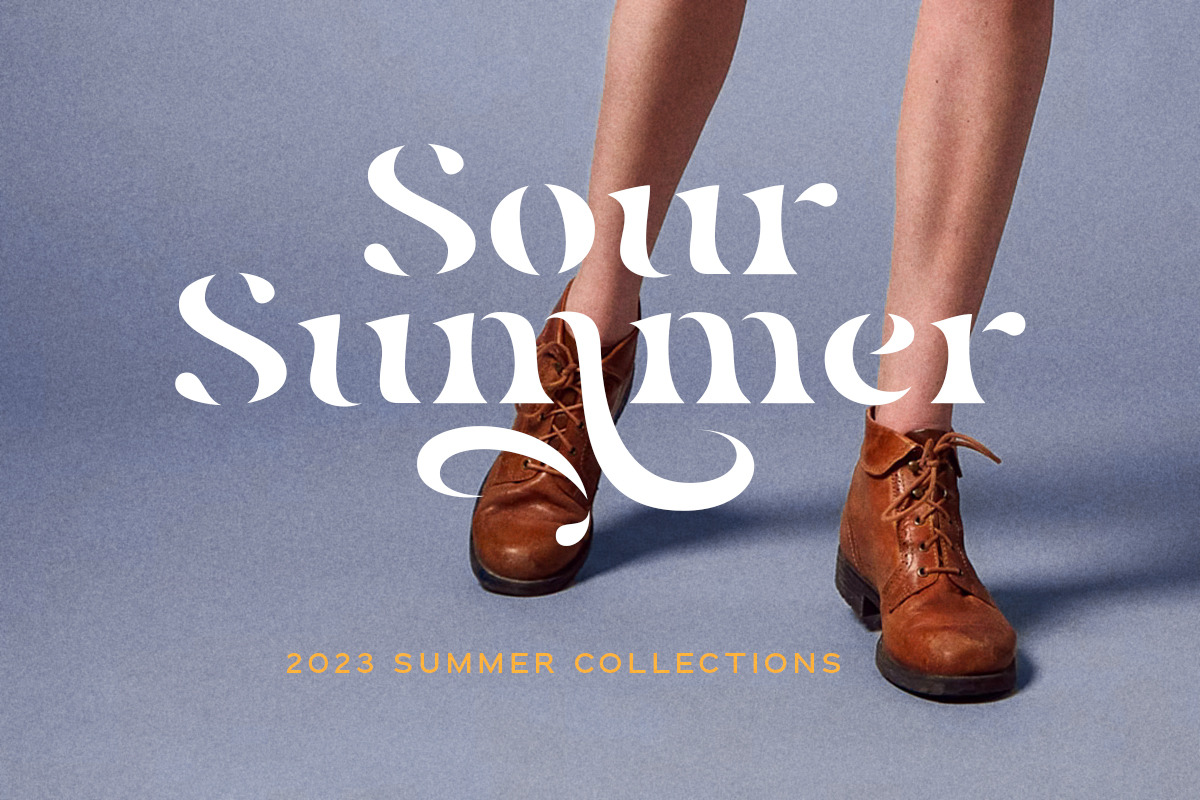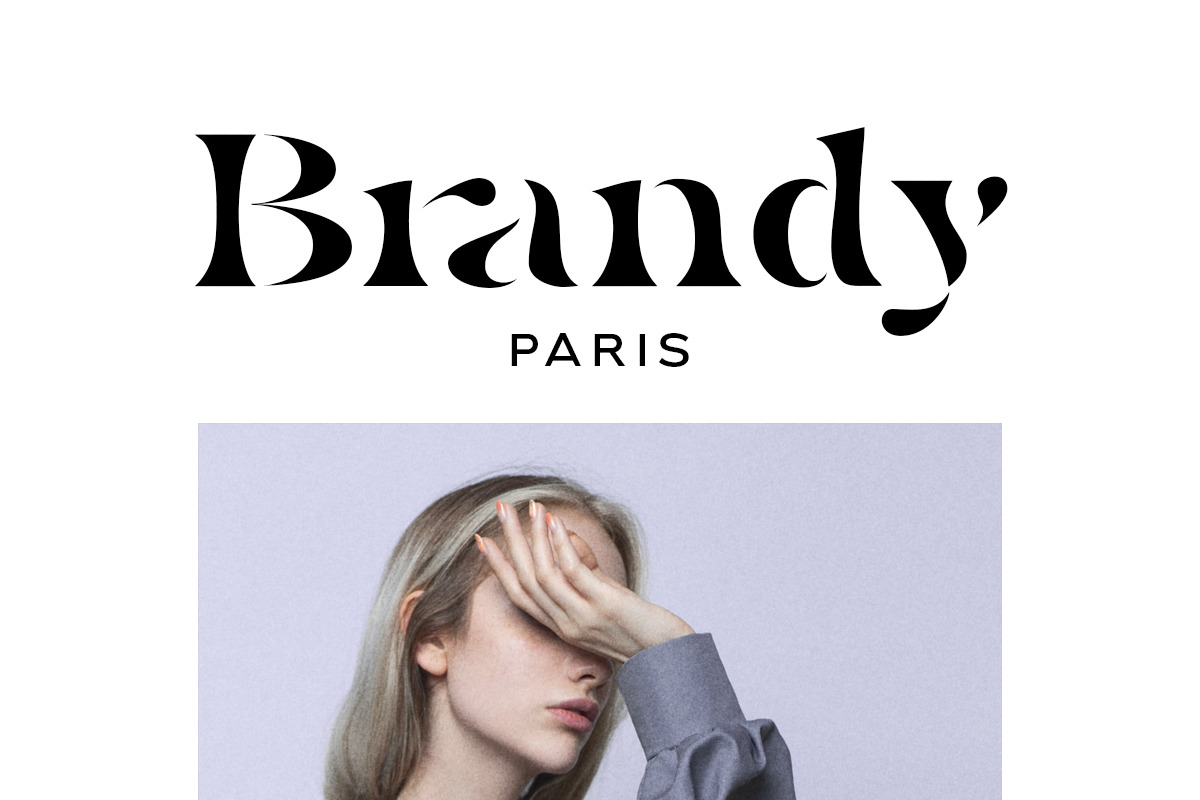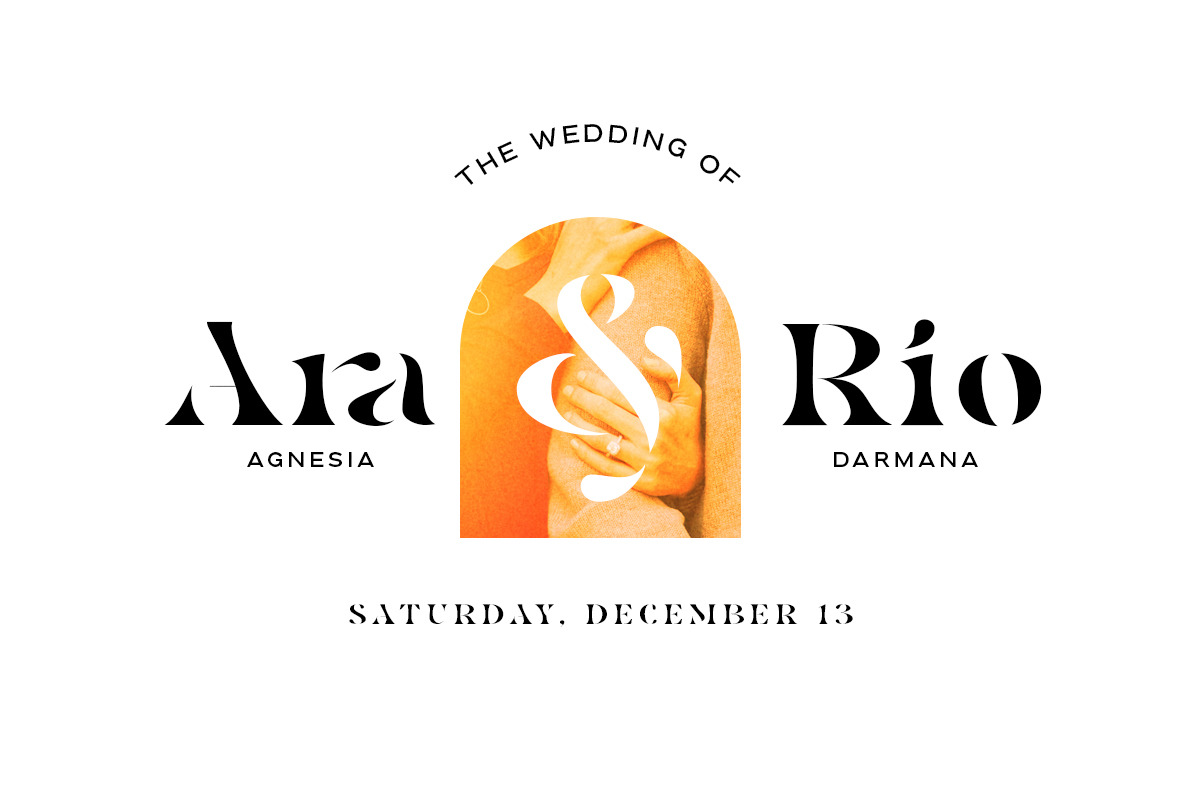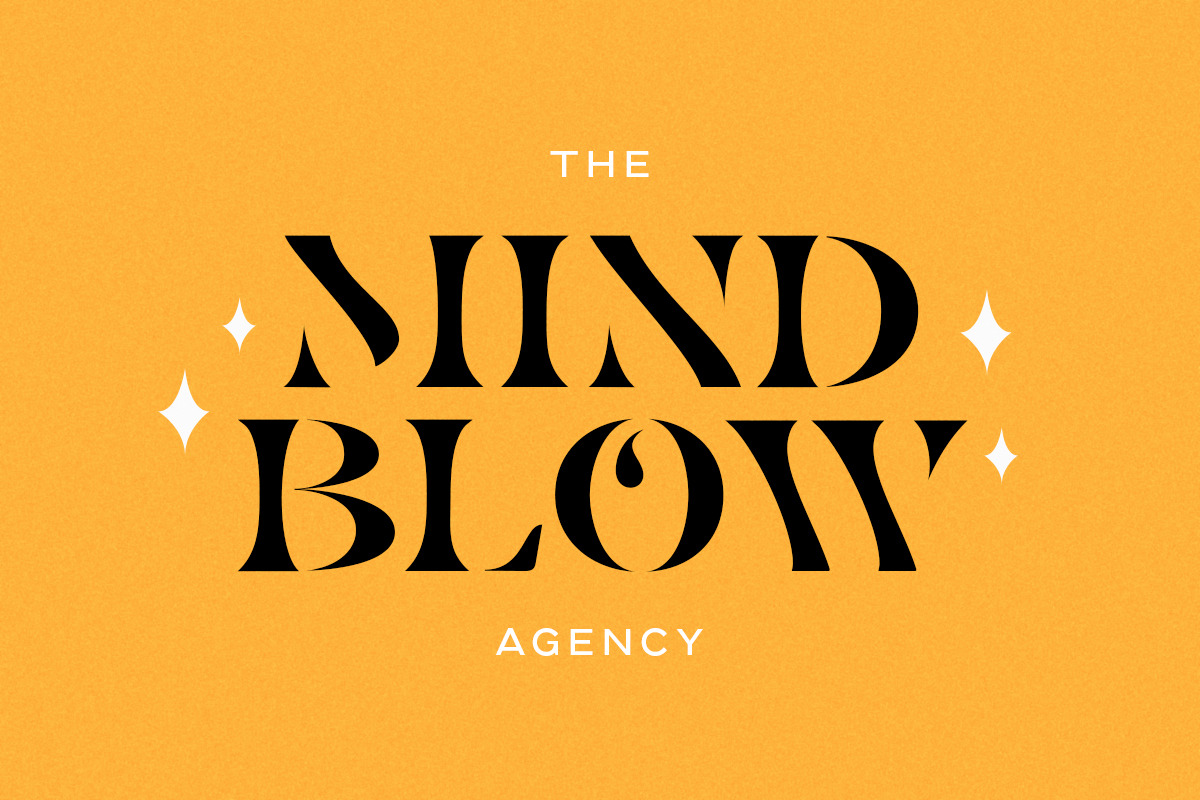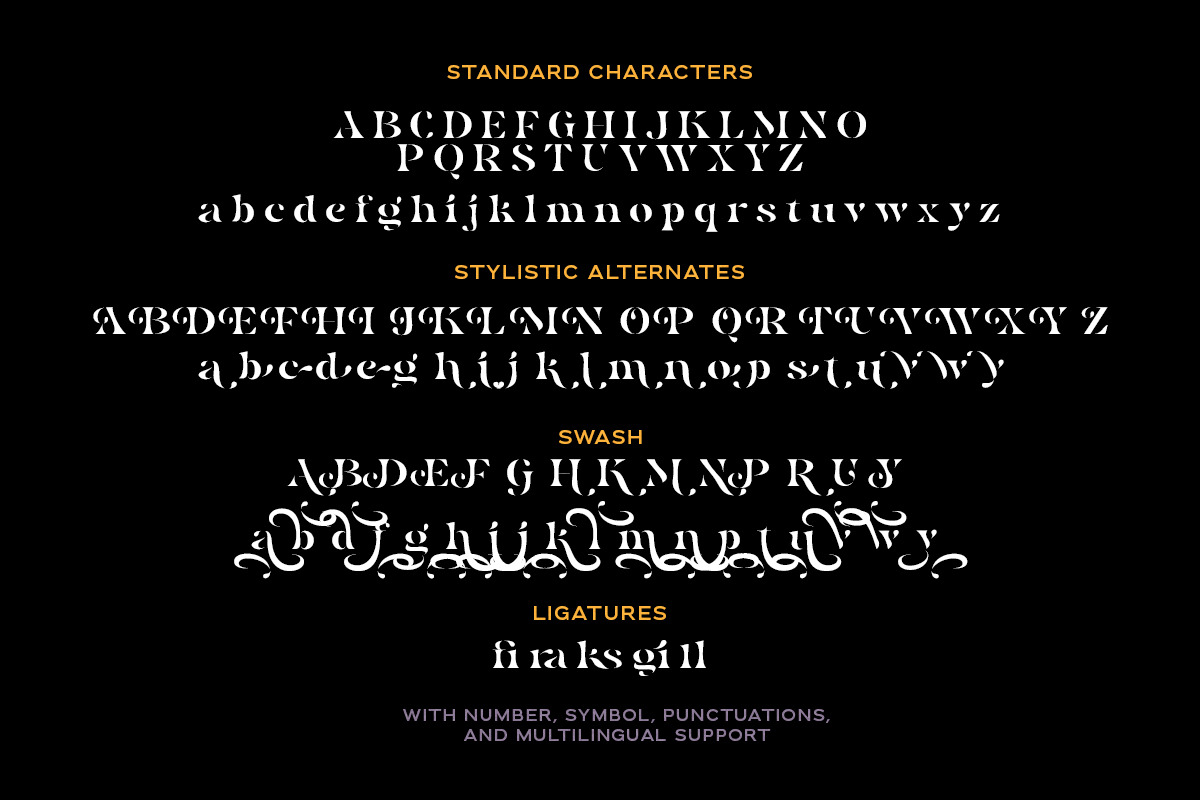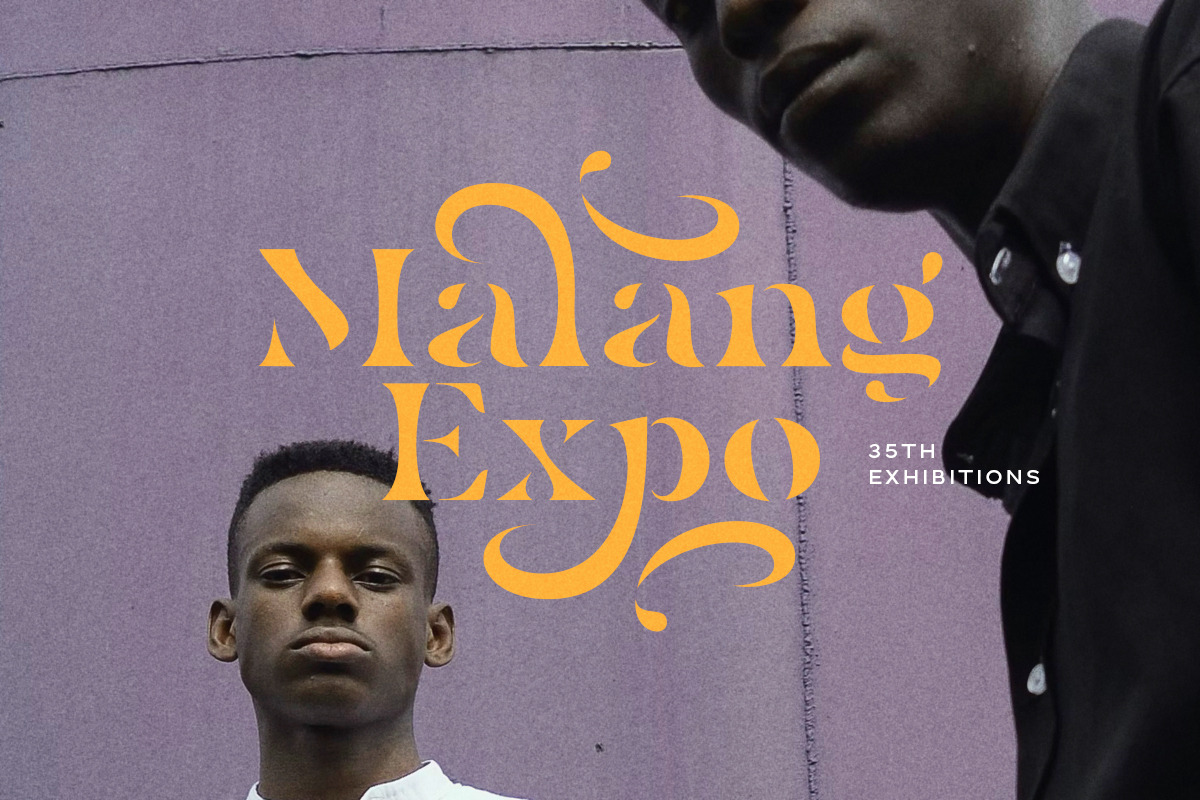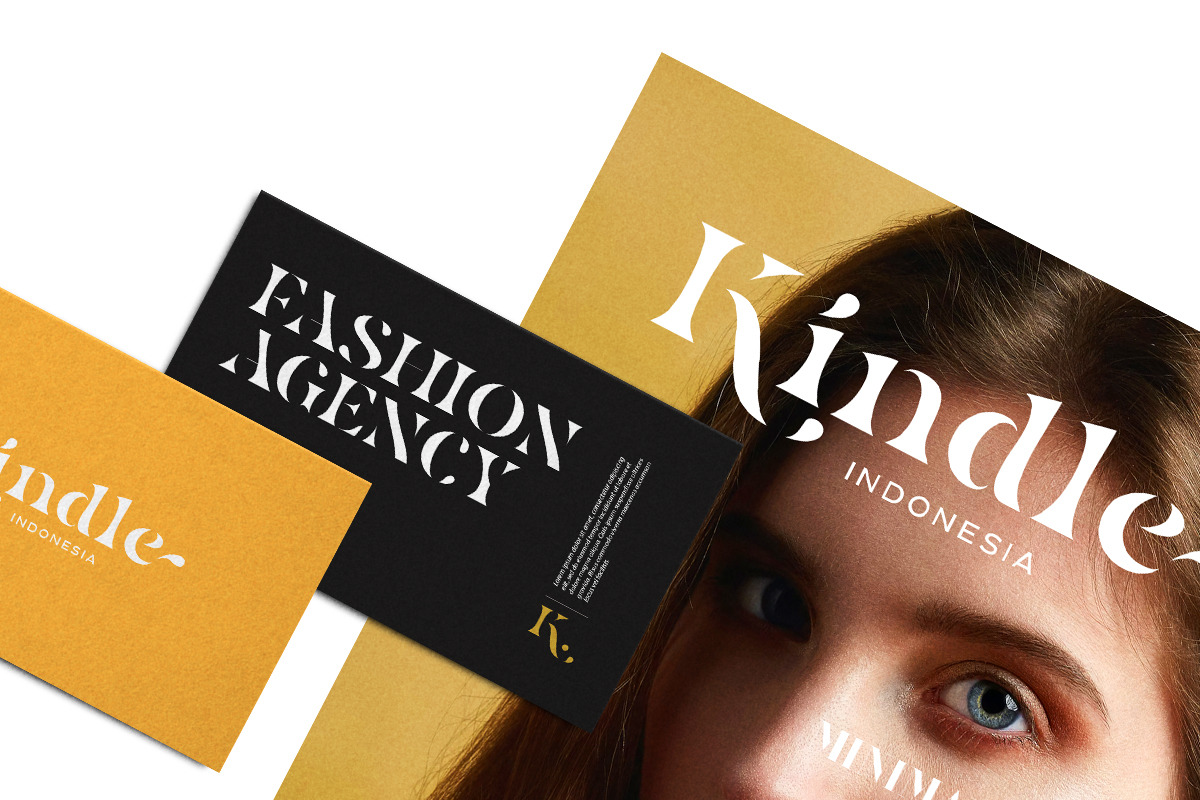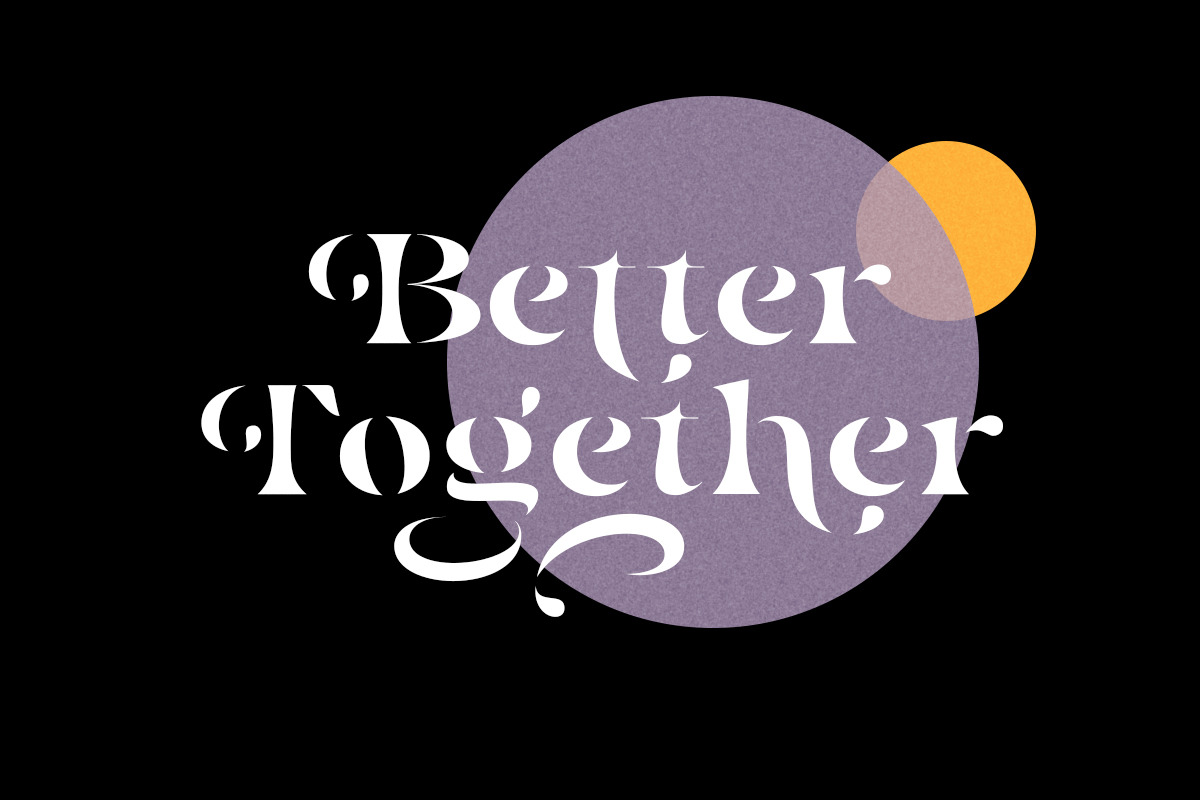
Billy Magie - Stylish Stencil Serif
Introducing, new font, Billy Magie - a stylish stencil serif with ligatures and alternates!
Billy Magie is a stylish and bold stencil serif with a bunch of ligatures and alternates that will make your presentation looks amazing and sophisticated! This font will make your project looks more clean and modern. You can use this font for logo, poster, event, or your social media post. Billy Magie also support Multi Language. and already PUA Encoded!
- Multi language
- Alternates for each characters